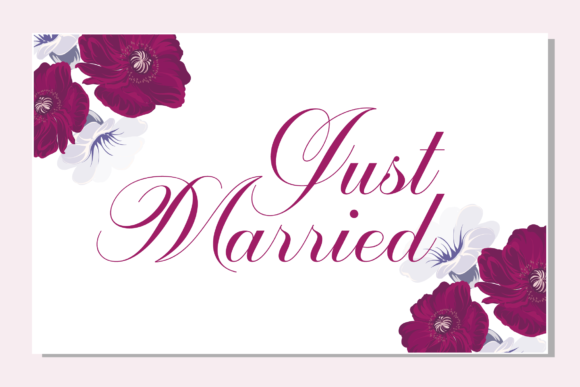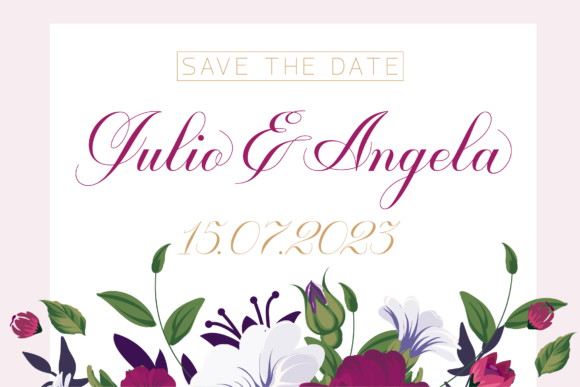
Burique Font
db-ku.com - Script & Handwritten -- Burique is a beautiful and subtle script font made for a romantic and beautiful look. It is perfect for greeting cards, business cards, wedding invitations, posters, logotypes, product branding and more.